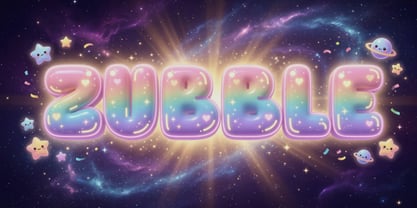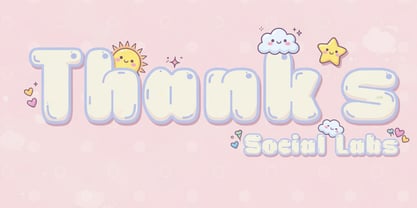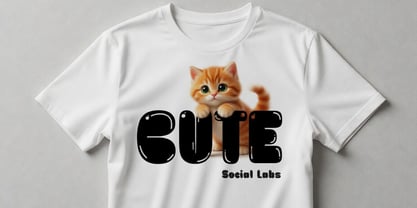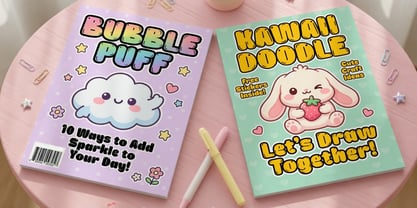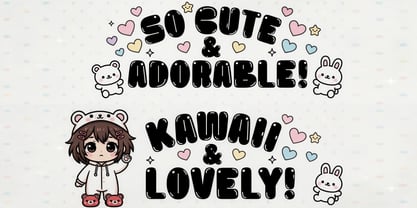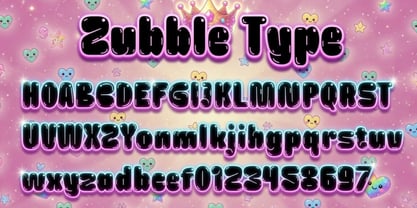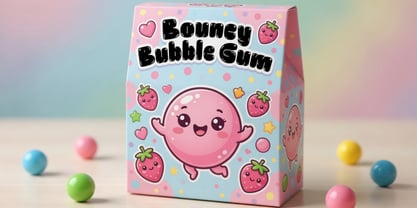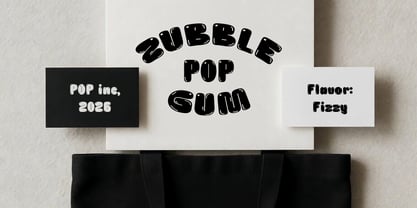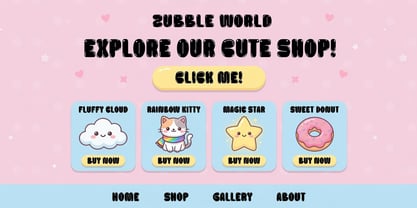
Zubble
The Zubble Font Family was designed by Muhammad Naufal and published by Social Labs. Zubble contains 6 styles and family package options. More about this family
Zubble is a stylish display font featuring highly rounded, full-bodied characters that resemble expanding bubbles with soft edges and no sharp corners, creating a playful, friendly, and slightly “melting” or organic, combined with a solid and consistent letter structure that ensures readability despite its unique shape, and exuding a modern, quirky, and expressive vibe, making it ideal for a wide range of creative design needs such as posters, headlines, casual branding, product packaging, digital content, and projects aiming to stand out, be fun, and be memorable without sacrificing readability